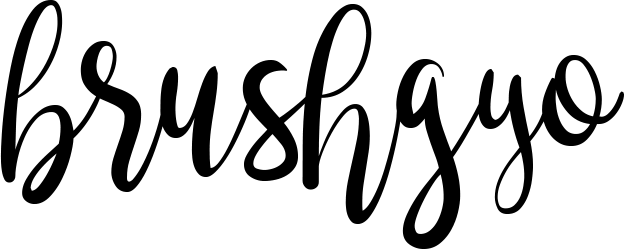
Brushgyo Font
It’s time to go with brushgyo and create a super stunning text-based layout. This modern script font can be used for; business cards, flyers, posters, books, and so on. Since it’s not legible we suggest you apply it to short passages. If you enjoyed this font, make sure to check our website.
https://graphicriver.net/item/brushgyo-typeface/18575778introducing brushgyo duo brother typeface. yeah… duo brothers because they are both very suitable if combined for your designs. For brushgyo regular it’s embrace modern script and brushgyo brother can be said to belong to handwriting sans serif.
brushgyo duo brother perfectly suited for logotype design, lettering wedding couple name, menu foods design, t-shirts design and others. font is worthy of being one of a collection of your fontbook because to have a unique character, handwriting and modern style.